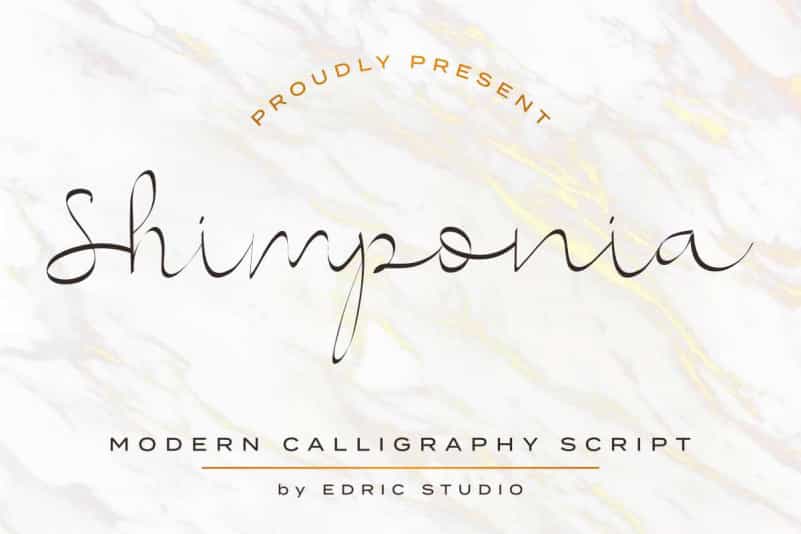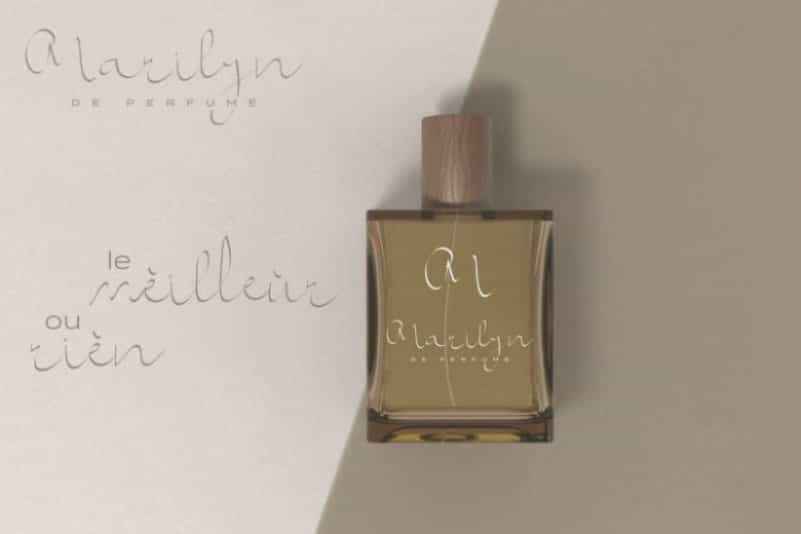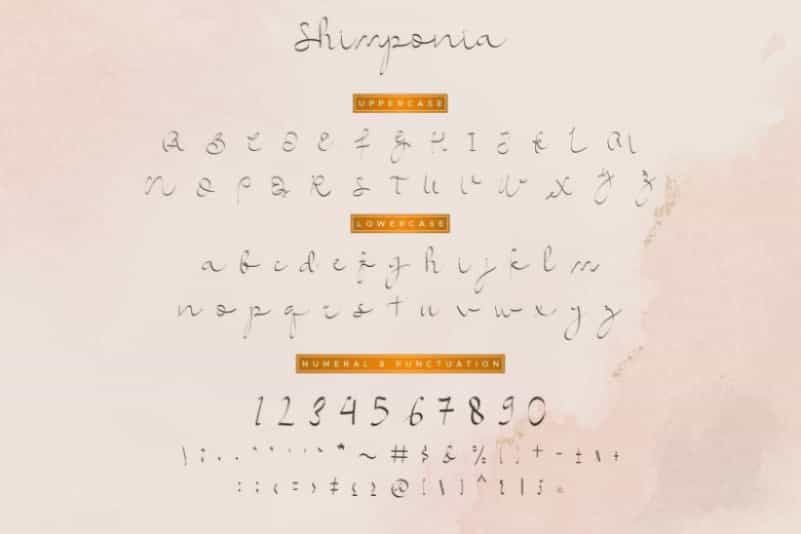
The Shimponia Font has a lot of special alternate glyphs that you can discover more with. This typeface will be stunning for : Logo (License Extension Needed), flyer, stationery, business card, signage, brochure etc.